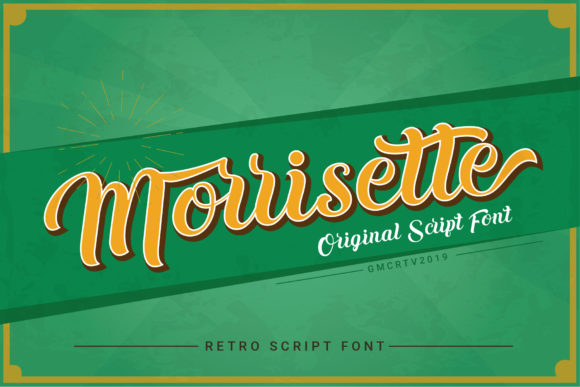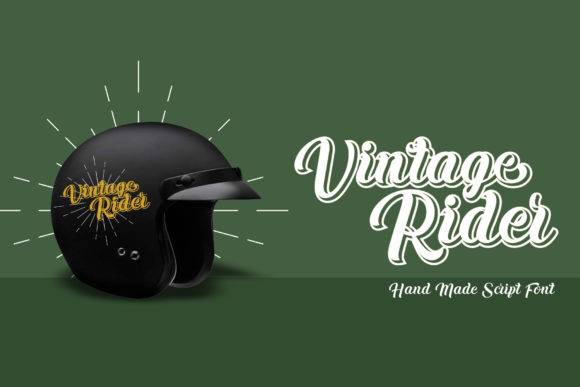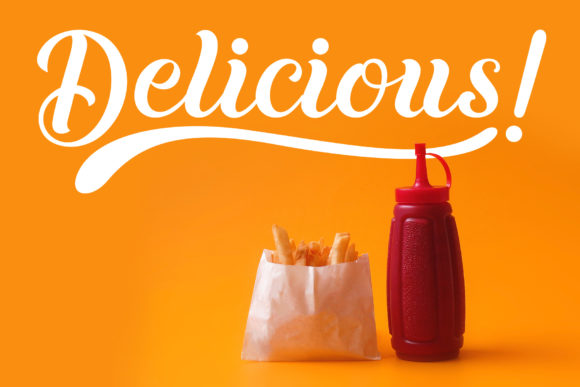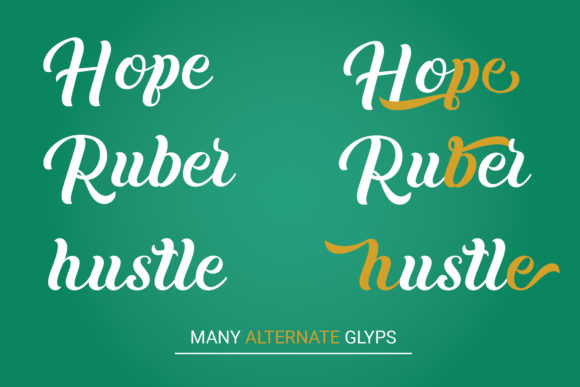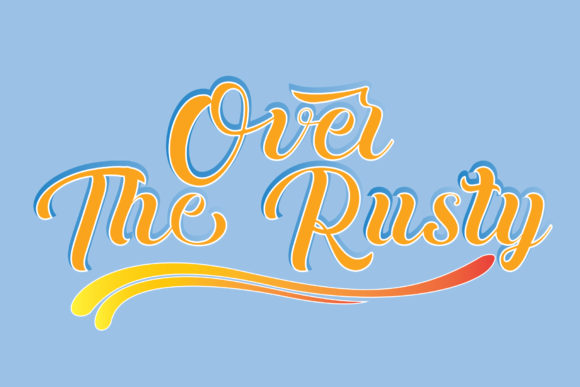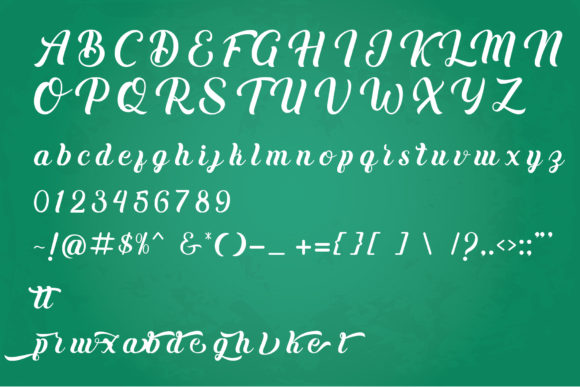
Morrisette Font
About Morrisette Font
Morrisette is a unique vintage font with a bold feel. It will turn any retro-themed design project into a stunner!